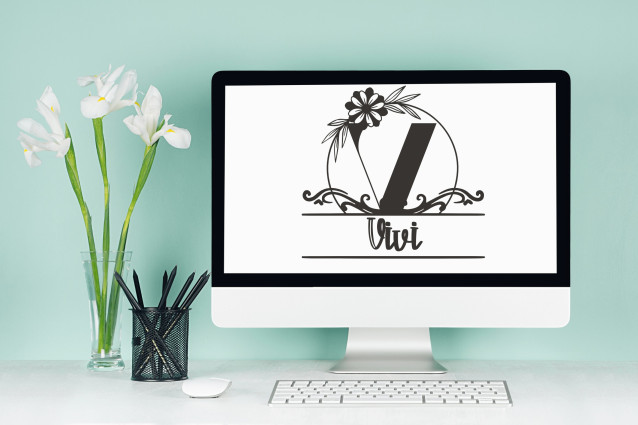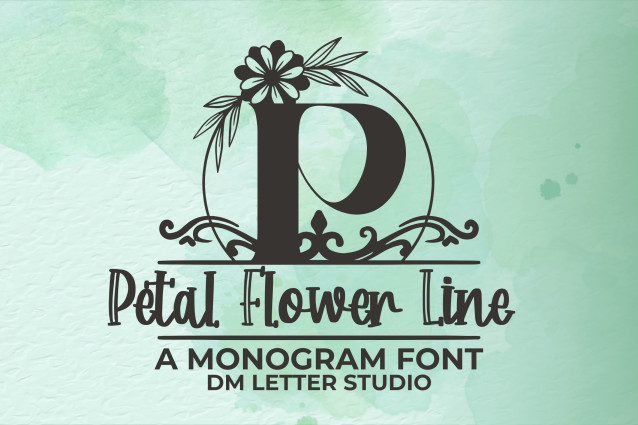
Petal Flower Line Monogram Font
Petal Flower Line Monogram is a refined monogram font that combines the elegance of botanical line art with a clean, minimalist monogram structure. Each letter is delicately decorated with linear floral motifs inspired by soft flower petals, making it perfect for modern weddings, boutique branding, feminine stationery, and seasonal projects that need a graceful, airy touch.